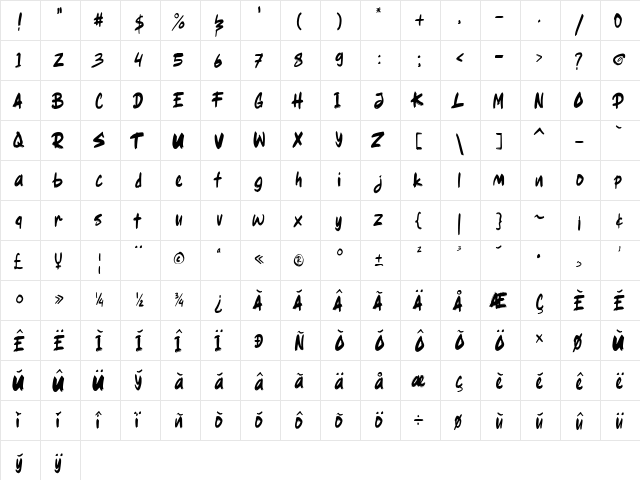
Ragsy Clean Regular
| Foundry | Degi Kurniawan |
| Designer | Degi Kurniawan |
Design Context for Ragsy Clean Typeface
Ragsy Clean is a composed and adaptable typeface that performs quietly and consistently across a wide range of design contexts.